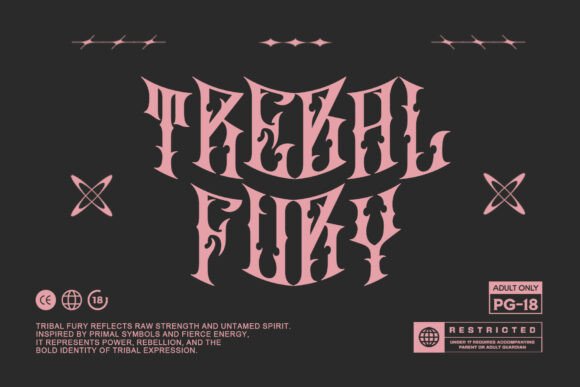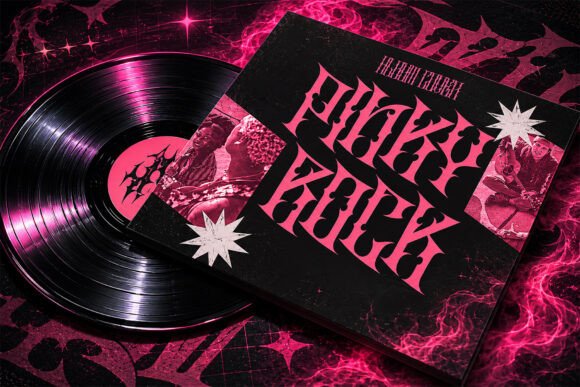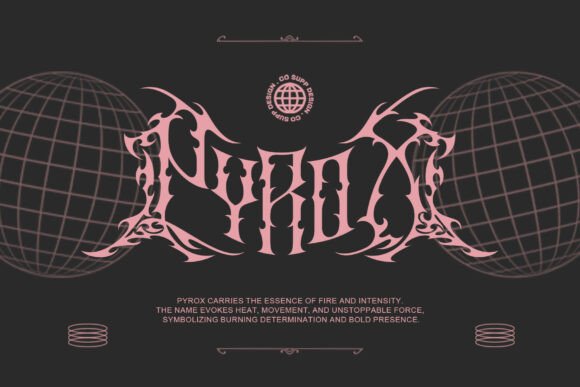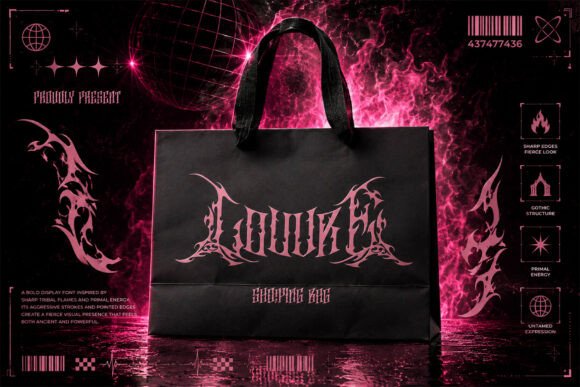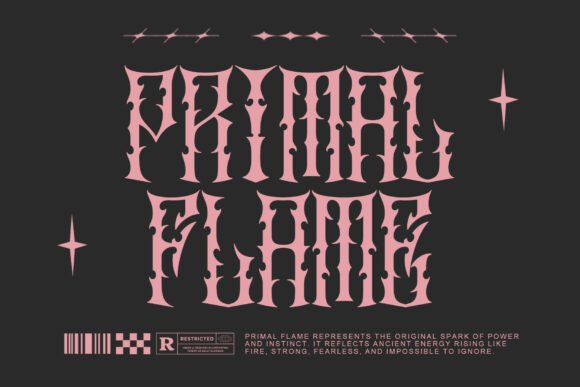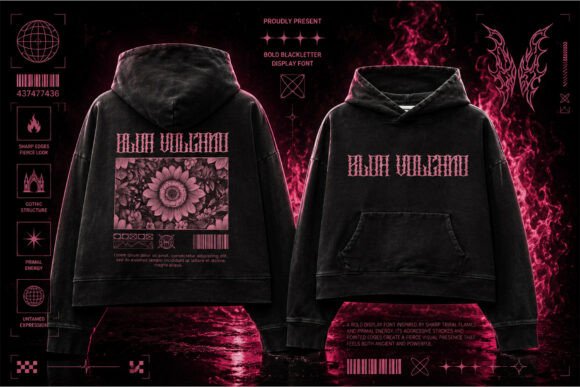
Introduction to Scarnix Font
As a designer, there’s that moment when you’re brainstorming ideas for a project and everything just clicks – the perfect combination of style, theme, and tone. For some, it’s the sound of a new song; for others, it’s the sight of a stunning visual that sets the tone for their creative project. For me, it’s the discovery of a font that speaks to the very soul of my design. And that’s exactly what I found when I stumbled upon the Scarnix Font – a true game-changer in the world of typography.
Scarnix Font is an aggressive blackletter display font that embodies the raw energy of primal fire, sharp tribal aesthetics, and gothic domination. Its razor-edged strokes, fierce curves, and powerful symmetrical structure make it the perfect design resource for anyone looking to add a touch of darkness and intensity to their work.
Whether you’re working on a high-profile branding project, a dark fantasy novel, or a band logo, Scarnix Font is sure to deliver. Its free download and transparent background make it an invaluable addition to any designer’s toolkit, allowing you to unleash your creativity without any restrictions. With its high-quality design and endless possibilities, Scarnix Font is an essential tool for any designer looking to push the boundaries of their creative project.
Key Features of Scarnix Font
- High-quality design for creative projects: Scarnix Font is a premium font that offers a unique and stylish look for your designs.
- Unique and creative design: Scarnix Font offers a unique and creative design that can add a touch of elegance to your designs.
Honest Review: Scarnix Font
I recently had the opportunity to work with the Scarnix Font, a design resource that offers a free download for creative projects. Overall, I was quite impressed with the quality and versatility of this font.
Here are some things that work well: ✨
- High-quality design: The Scarnix Font boasts a unique and stylish design that can elevate any creative project.
However, there are some limitations to consider: ⚠️
- Limited customization options: While the font itself is high-quality, the customization options are somewhat limited, which may be a drawback for some designers.
- May not be suitable for all projects: The Scarnix Font has a distinct style that may not be suitable for all types of creative projects.
Overall, I would recommend the Scarnix Font to designers who are looking for a high-quality, free design resource. While it may have some limitations, it’s a great option for those who want to add a touch of sophistication to their creative projects.
Getting the Most Out of Scarnix Font
For optimal results, use the Scarnix Font in conjunction with a high-quality image or design element. Experiment with different font sizes and styles to achieve the desired look.